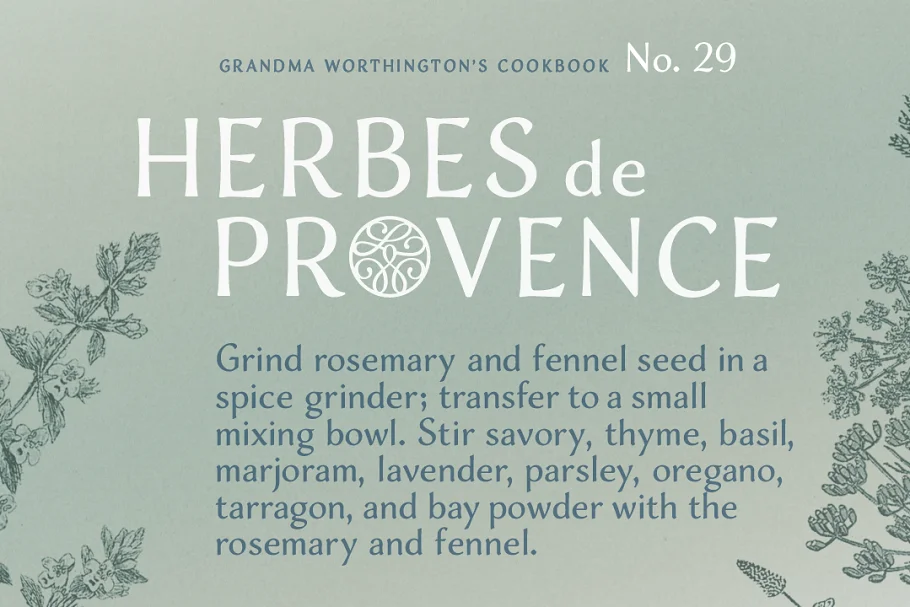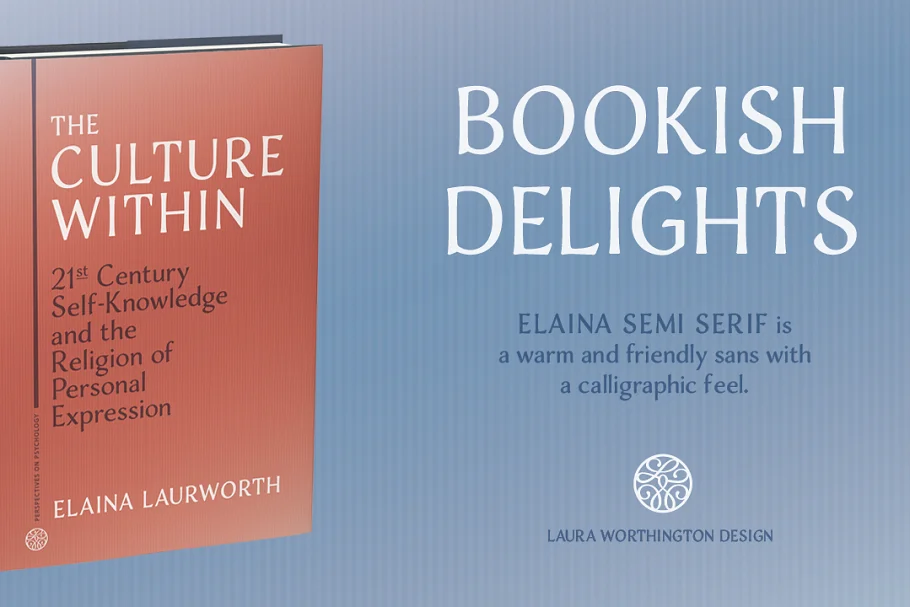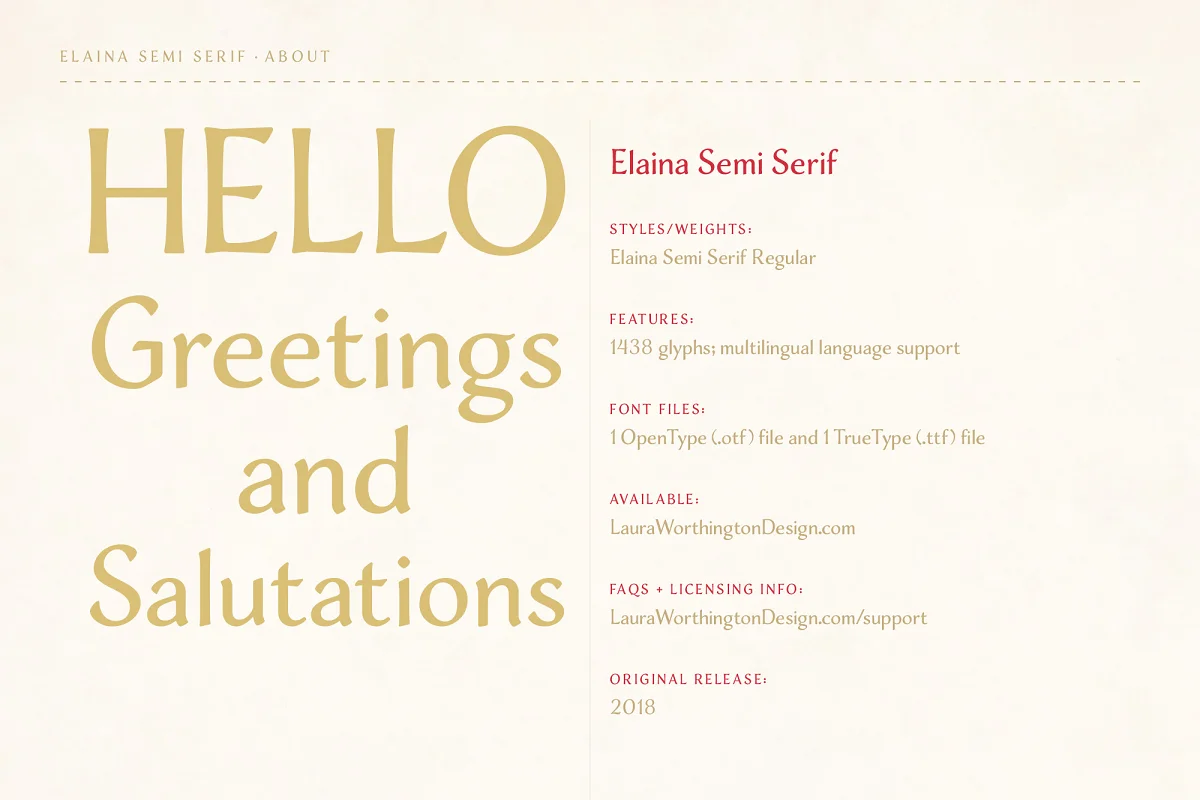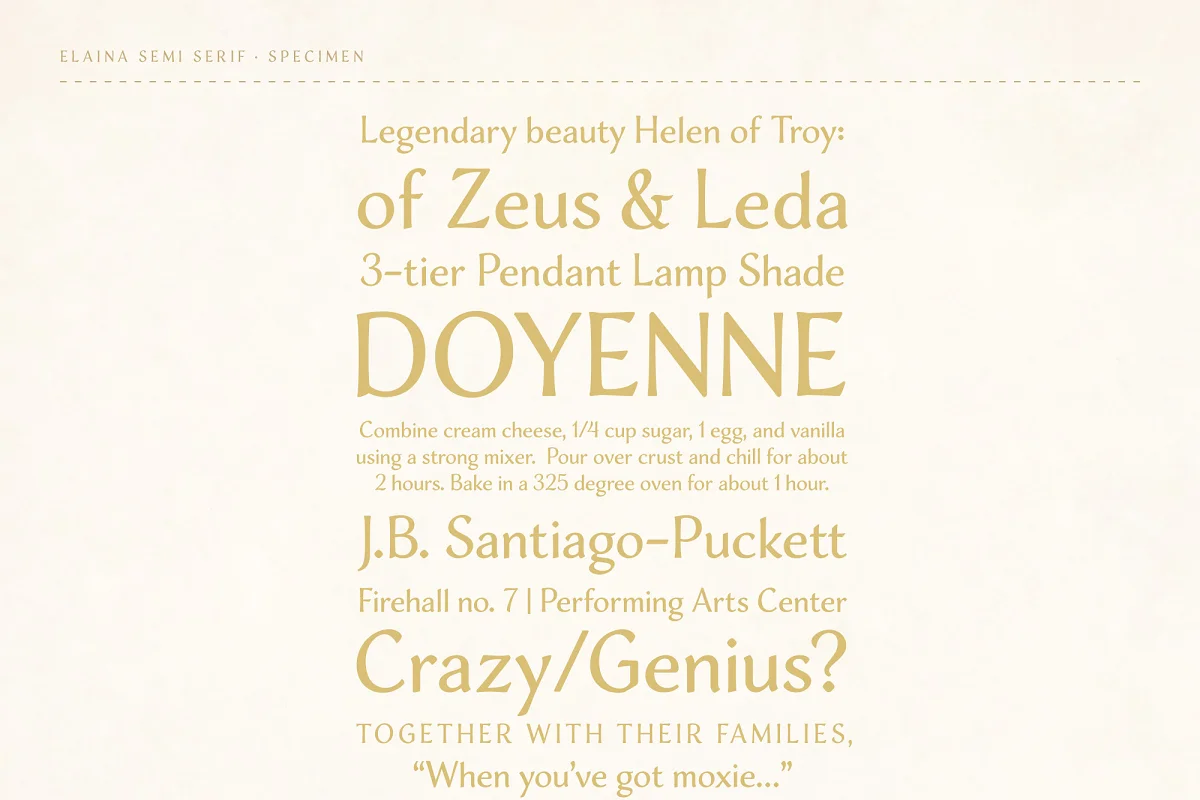
About the Elaina Semi Serif Font
Elaina Semi Serif was designed to complement Elaina Script. Both faces share calligraphic roots and typography and allow them to mix harmoniously.
Its modulated strokes and subtly flared terminals give it a humanist feel that adds warmth and positivity to any setting.